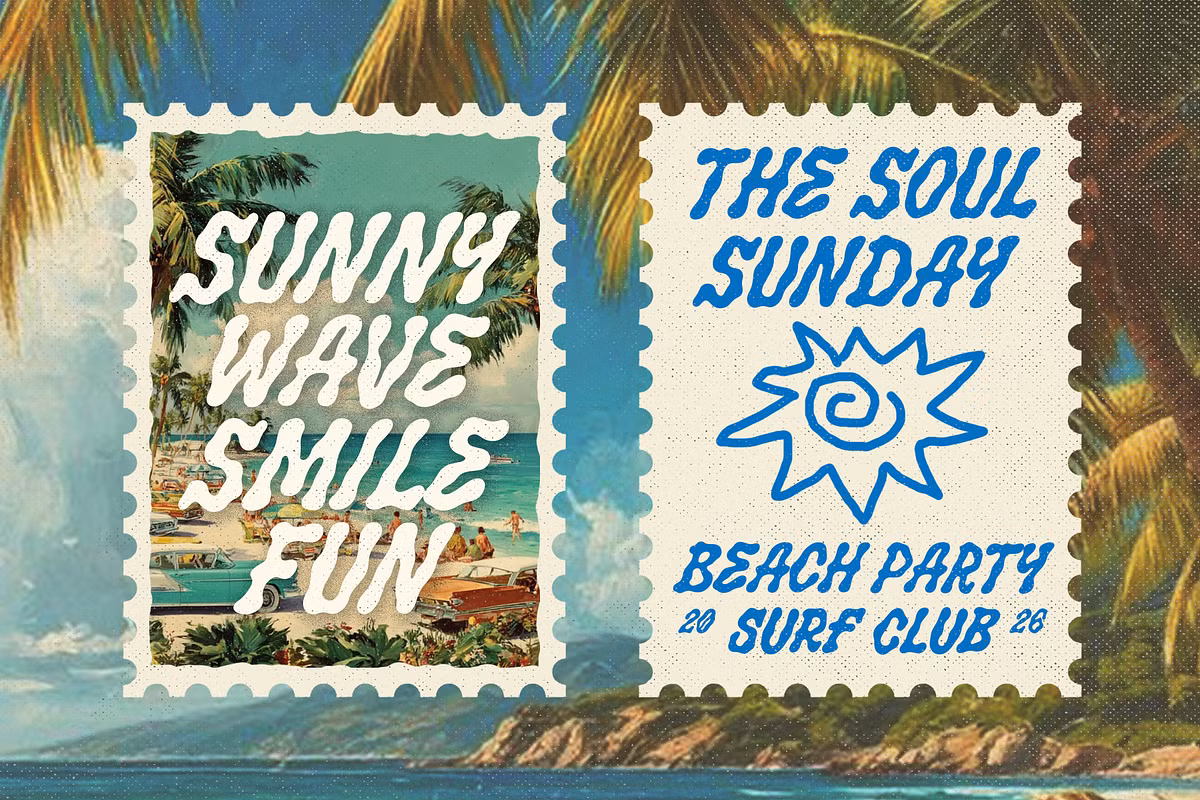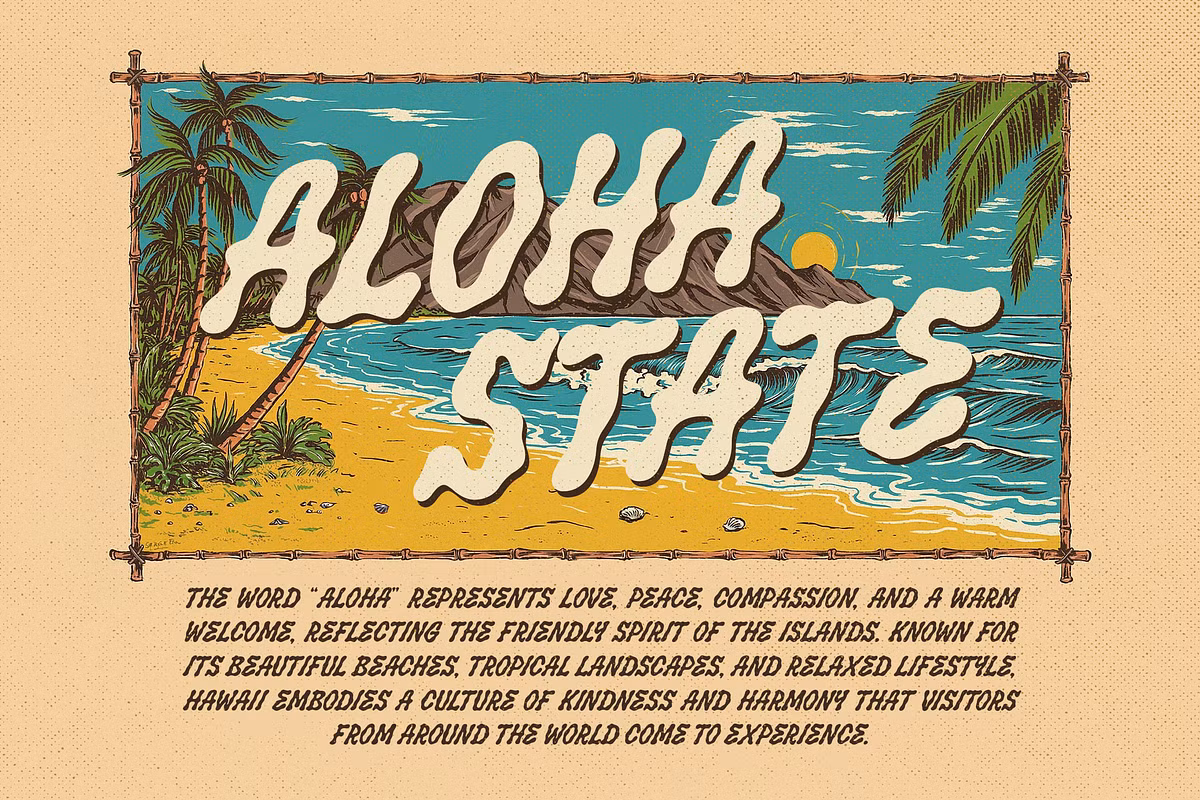
Salty Smile: Playful Display Font for Beach-Inspired Designs
Salty Smile is a really fun and playful font that makes you think of happy days at the beach, the sound of the waves, and the relaxed feeling of being in a tropical place. It’s a great way to add some excitement and joy to your projects, and it works well for lots of different design ideas. Whether you’re making something for a summer vibe or just want to add a little sunshine to your work, Salty Smile is a great choice. It’s all about spreading positivity and having a good time, and that’s what makes it so special. With its lively and carefree spirit, Salty Smile is perfect for anyone who wants to bring a smile to people’s faces.
The Salty Smile design has a really soft and wavy look, kind of like the ocean. Each letter is smooth and flows into the next one, creating a nice rhythm that grabs your attention right away. This font is pretty bold, so it stands out no matter where you use it – whether it’s on a big poster or a small social media graphic. The fun and playful feel of Salty Smile comes from its rounded edges and bubbly shapes, which together make you feel welcome and friendly. It’s like the font is smiling at you, with its gentle curves and soft lines that are easy on the eyes. Overall, Salty Smile is a great choice when you want to add a little personality to your design and make it feel more approachable and fun.
Salty Smile has a really happy and cheerful look that’s great for making people feel carefree and relaxed. This font is perfect for designs that want to make people smile and feel good. It works well for things like summer parties or for companies that want to look professional but still be fun and friendly. The unique style of Salty Smile makes it a great choice for lots of different situations, from casual get-togethers to more serious business branding that still wants to seem approachable and lighthearted. Overall, Salty Smile is a fantastic font for anyone who wants to add a little bit of happiness and personality to their design.
Character Sets
Salty Smile is a really versatile font that works well with lots of different languages and design projects. It’s got a huge range of characters, including uppercase and lowercase letters, numbers, punctuation marks, and some special characters too. What makes it really stand out is the rounded shape and playful curves of each character – it makes everything you write look super engaging and fun to read. Whether you’re working on a project that needs to be serious or playful, Salty Smile is a great choice because it’s so flexible and easy to use. The fact that it includes so many different characters means you can use it to create all sorts of words and phrases, and it’s still going to look great. Overall, Salty Smile is a fantastic font for anyone who wants to add a bit of personality to their writing.
The fun and playful style of Salty Smile makes it perfect for using in lots of different designs, like websites and cards. When you use these letters, they fit in really well and make your message more exciting and happy. So, if you’re making a birthday card or a banner for a website, Salty Smile can help you make it look great and catch people’s attention.
Use Cases
Salty Smile is a really cool font that you can use in lots of different projects. It’s super versatile, which means it can work well in many different situations. Here are some ideas for using this fun font:
- Branding: Salty Smile is great for companies that want to seem fun and friendly. It works well for logos, business cards, and other promotional stuff, especially for businesses that deal with travel, food, or things people do for fun.
- Packaging: Whether it’s tropical beverages, beachwear, or snacks, Salty Smile brings a sense of joy to product packaging. Its playful nature can help attract consumers and convey the lightheartedness of your product.
- Posters: Create vibrant posters for events such as summer festivals, beach parties, or surf competitions. The boldness of Salty Smile ensures that your message will be seen from afar.
- Social Media: Salty Smile is perfect for social media because it’s so cheerful and friendly. This makes it great for posts that want to engage people and spread positive messages. When you use Salty Smile, your posts will have a happy vibe that will make people want to interact with them. It’s all about sharing good feelings and making your audience smile.
- Merchandise: From tote bags to T-shirts, incorporating Salty Smile into your merchandise design can create a memorable and fun product that resonates with customers.
The cheerful nature of Salty Smile makes it an excellent choice for pairing with other fonts to create balanced and engaging designs. Whether you’re looking for complementary serif fonts or modern sans-serifs, Salty Smile’s playful character can enhance your overall aesthetic.
Overall, Salty Smile is a fantastic option for anyone looking to infuse their designs with a sense of fun and approachability.